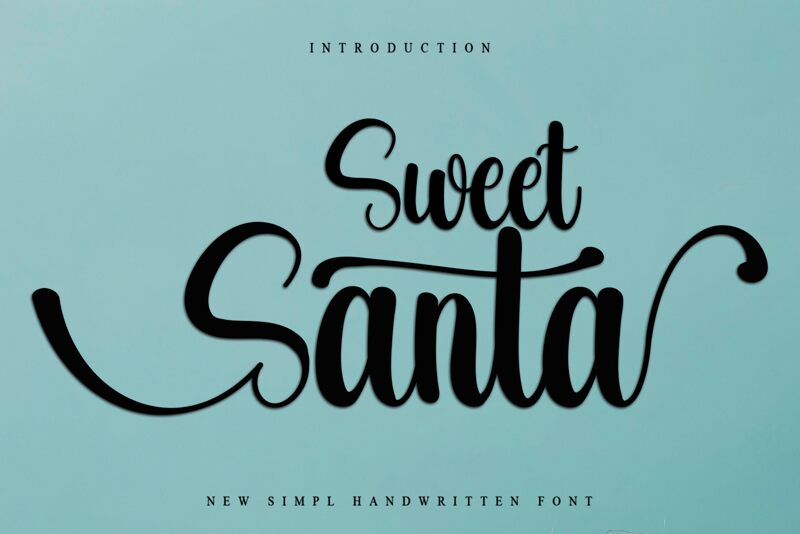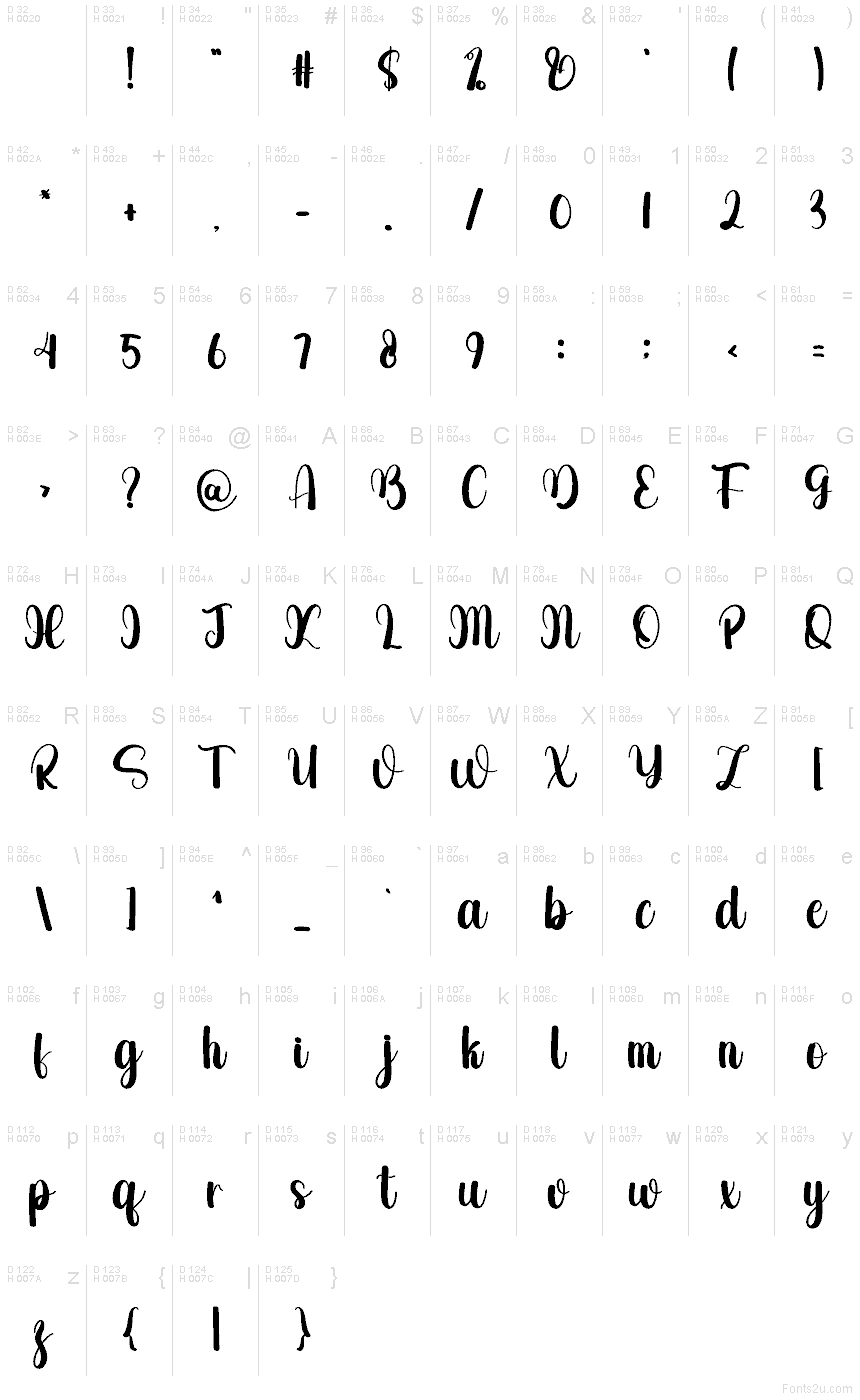
Sweet Santa
Sweet Santa font by Creatype Designer is a free brush script typeface that feels like it’s been written with a soft, inky marker on smooth cardstock. The letters are tall and looping, with generous curves and a cozy bounce that instantly suggests gift tags, warm cookies, and twinkling lights. Its strokes are bold yet slightly tapered, giving every word a hand-lettered charm that feels personal rather than polished-by-committee.
Using Sweet Santa, you can bring a festive, homemade touch to holiday cards, Christmas party invitations, seasonal branding, product packaging, social media graphics, and mug or T‑shirt designs. The rhythm of the script is lively but still easy to read, even at larger sizes where the swoops can really breathe. This free font pairs beautifully with a clean sans serif for body text—let Sweet Santa handle the headlines while a simple companion keeps the details clear.
This font retains a classy calligraphic influence while feeling contemporary and fresh. This versatility will attract a wide range of creative ideas, from letterheads and titles to stationery.